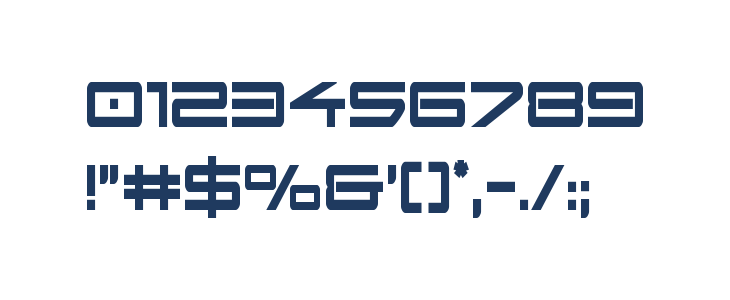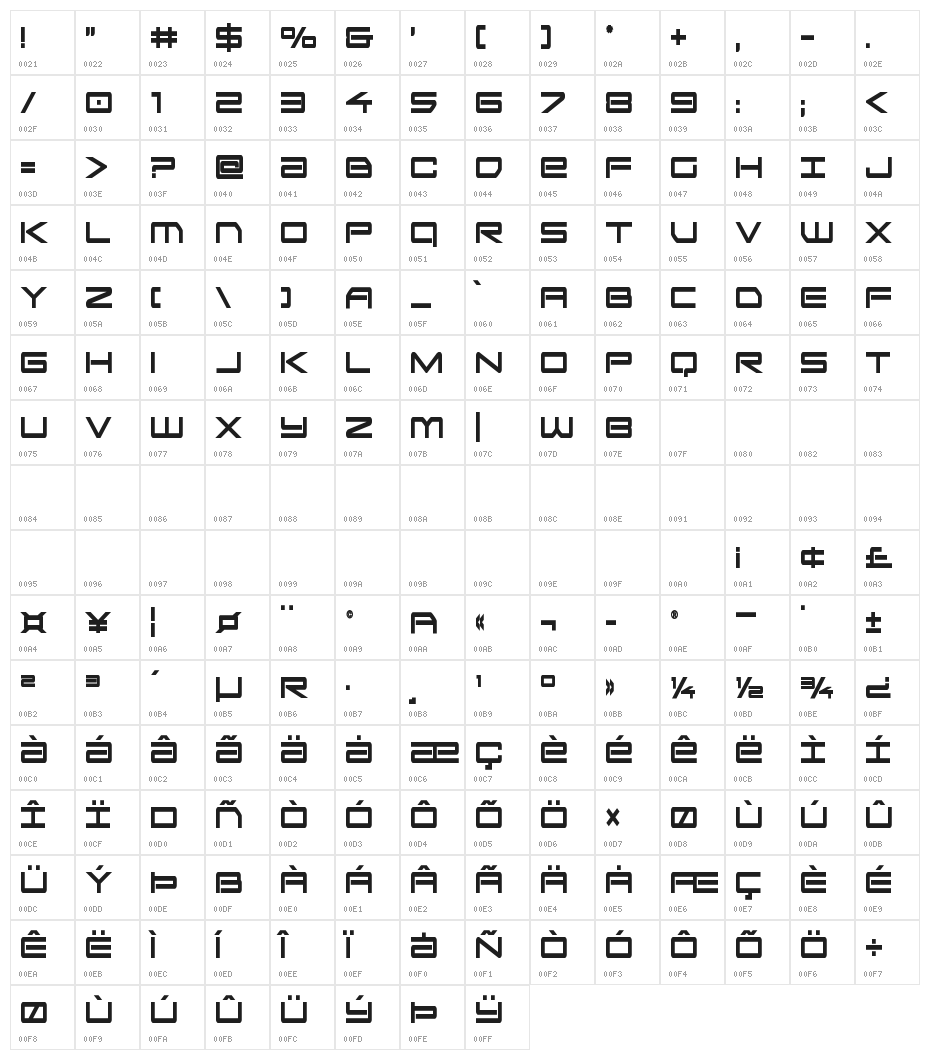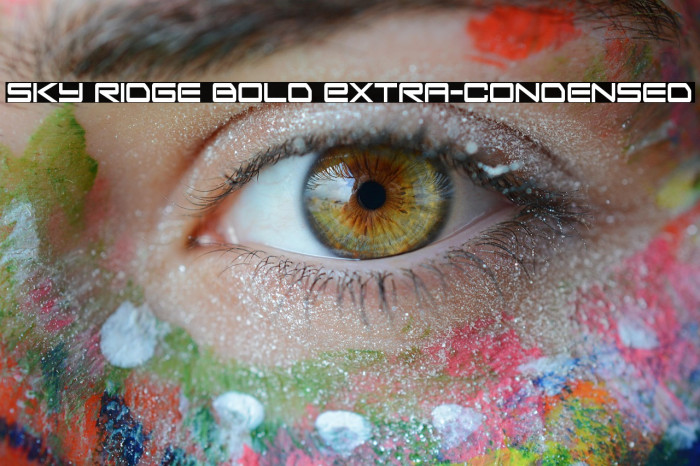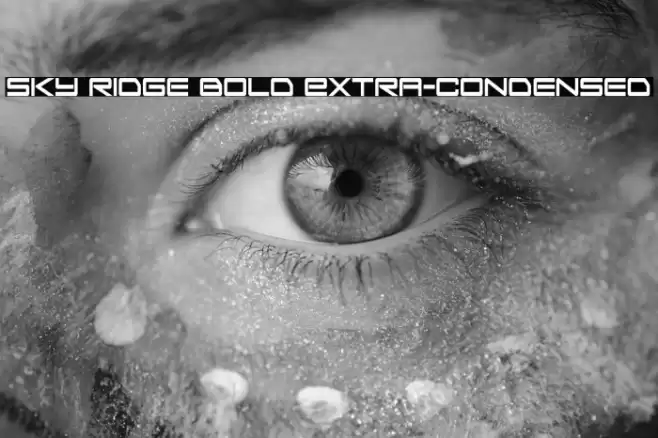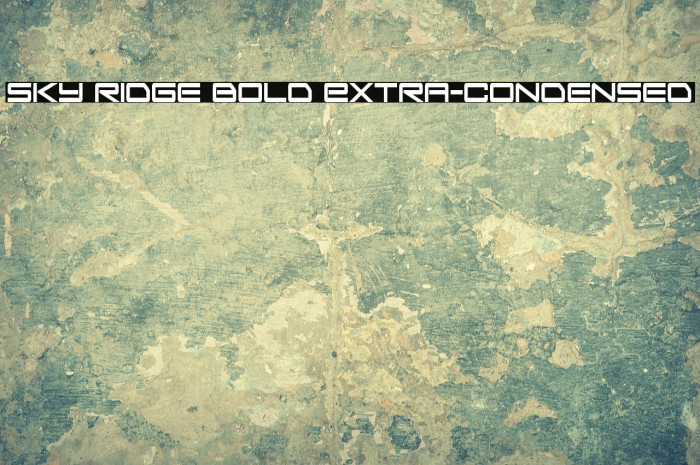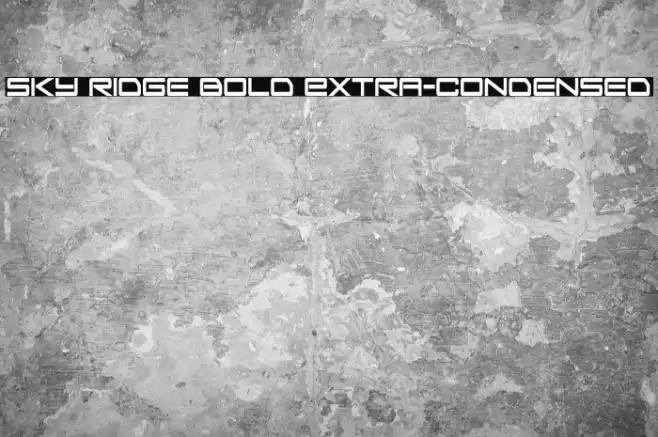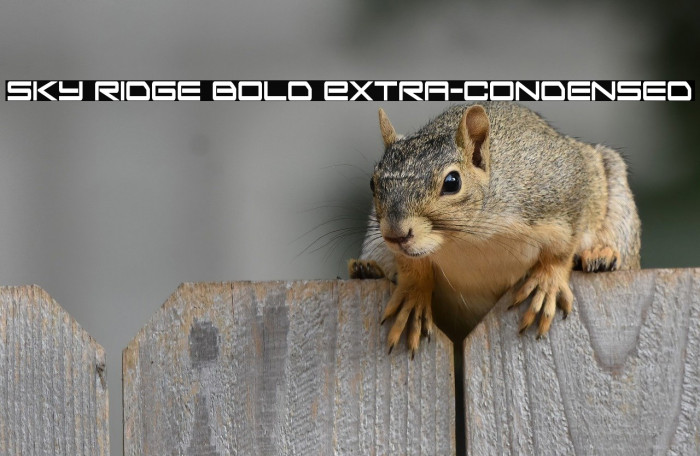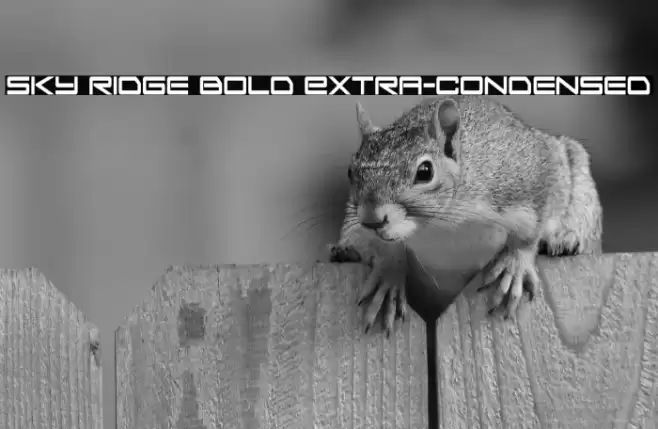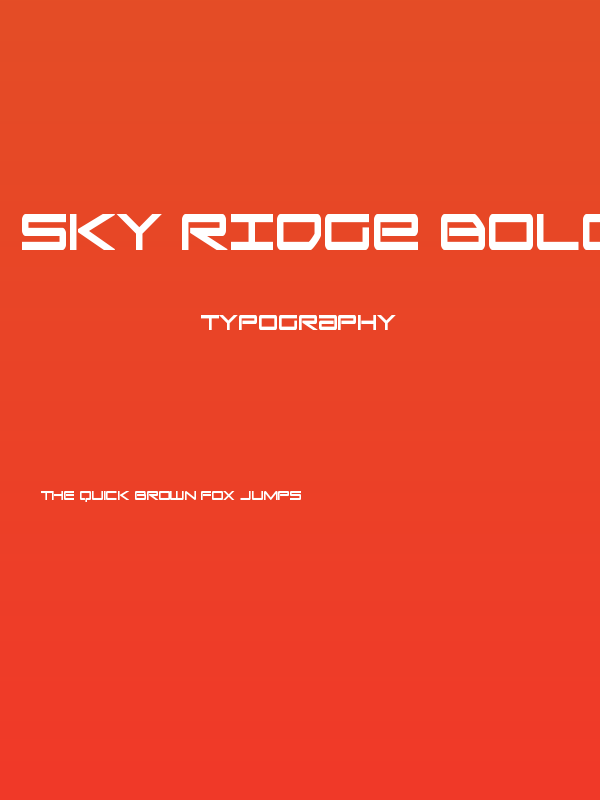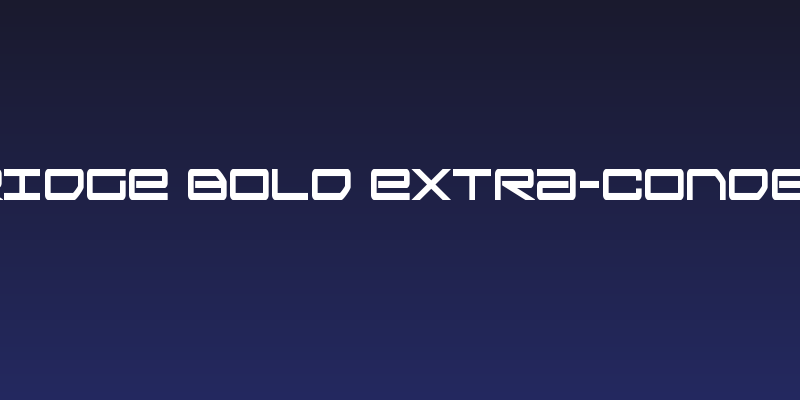
Sky Ridge Bold Extra-Condensed Font
Sky Ridge Bold Extra-Condensed Description
This font features a bold and extra-condensed style, characterized by its geometric and angular letterforms. The uppercase and lowercase letters maintain a consistent height, creating a uniform appearance. The design incorporates sharp edges and a futuristic aesthetic, making it stand out with its unique structure. The numerals and special characters follow the same design principles, ensuring a cohesive look across all glyphs. This font's distinct style is ideal for projects that require a modern and edgy feel.
| Proposed Projects | Ideal for futuristic branding, tech-related designs, and modern posters. |